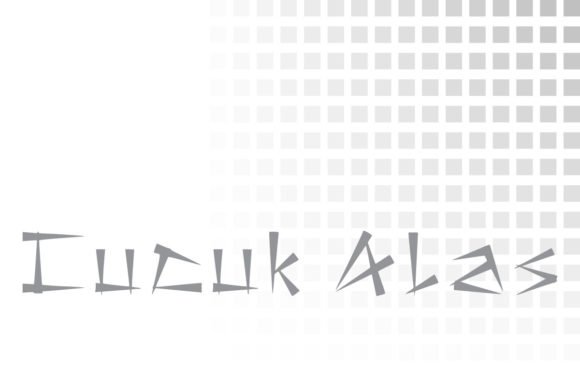
Introduction to Cucuk Alas Font
Cucuk Alas is a simple, elegant, and modern font that you can use as a logo tagline or monogram.
This font is suitable for t-shirt designs too, quotes, wall art, and many more as you wish .
Cucuk Alas Font offers exceptional quality and versatility, making it a valuable addition to your design toolkit. Whether you’re creating for personal projects or commercial use, Cucuk Alas Font delivers professional results.